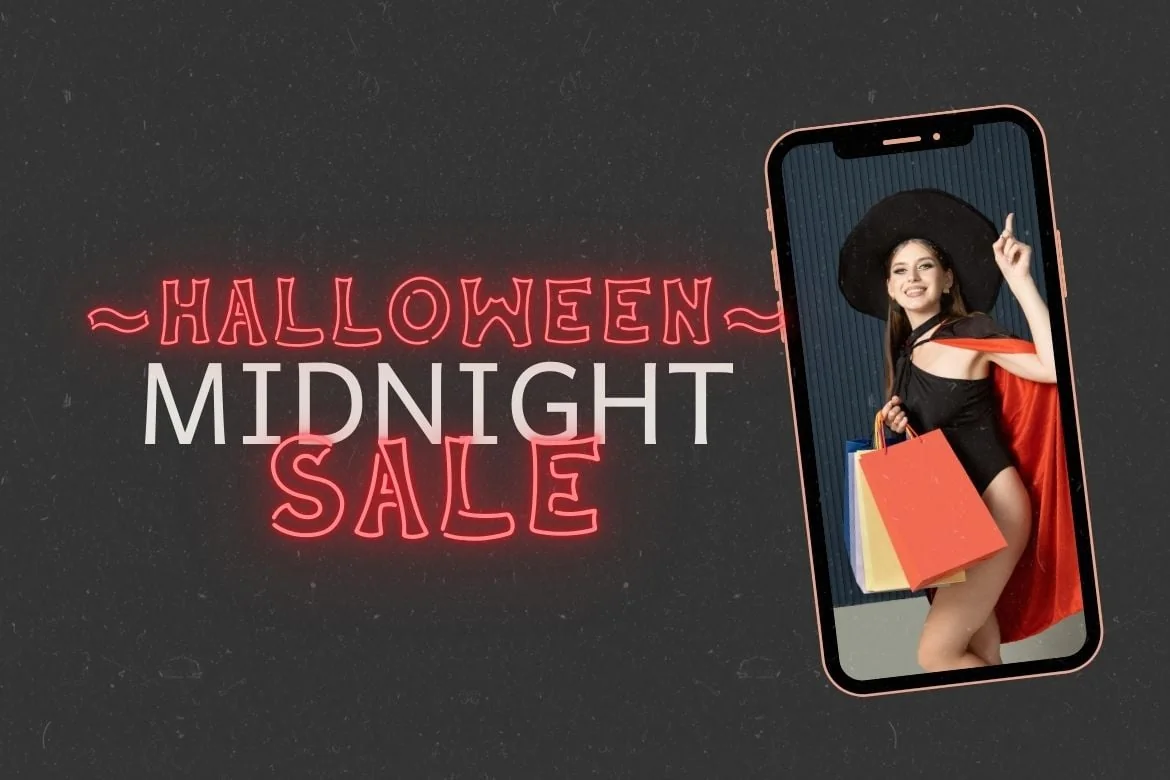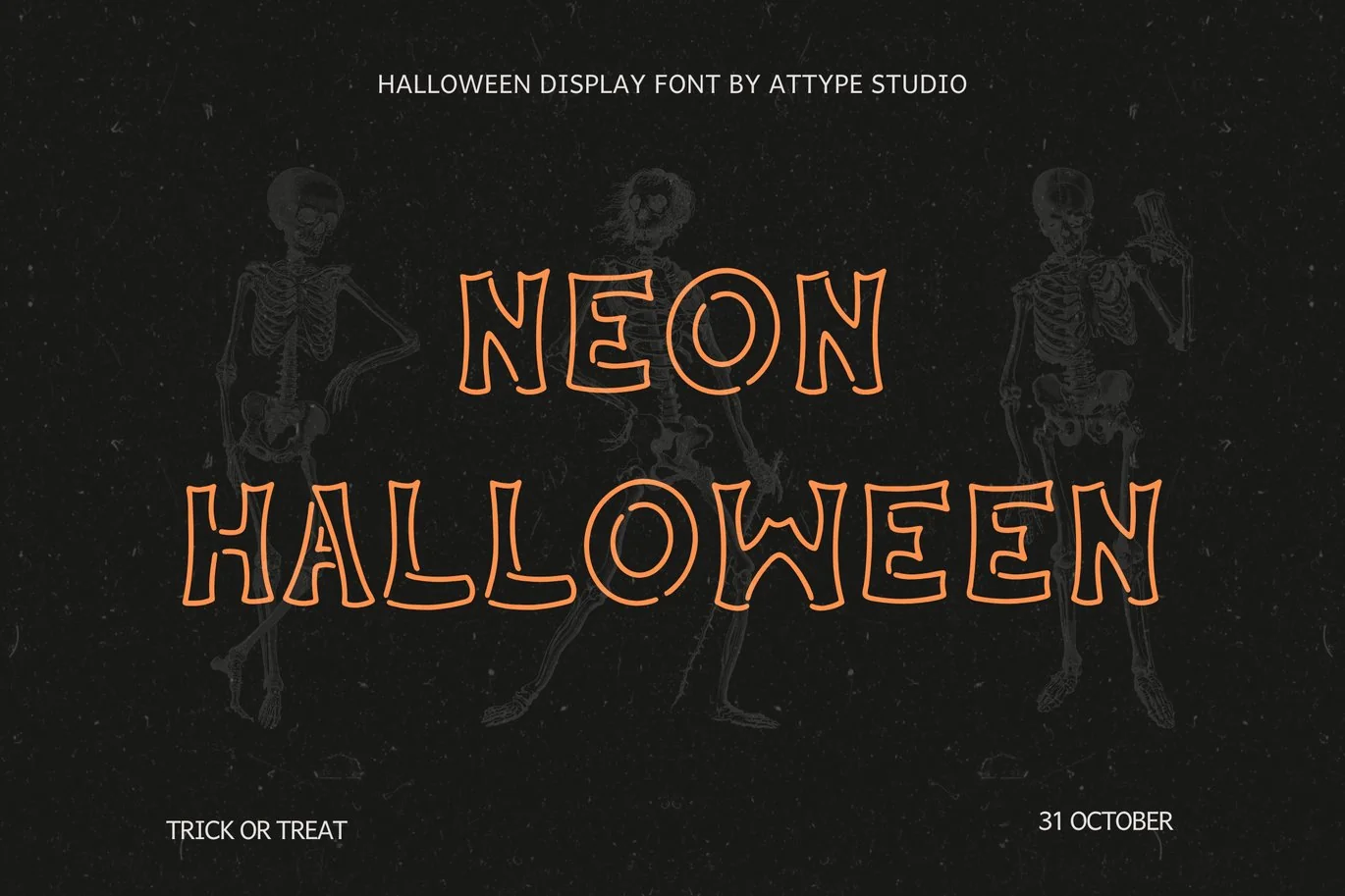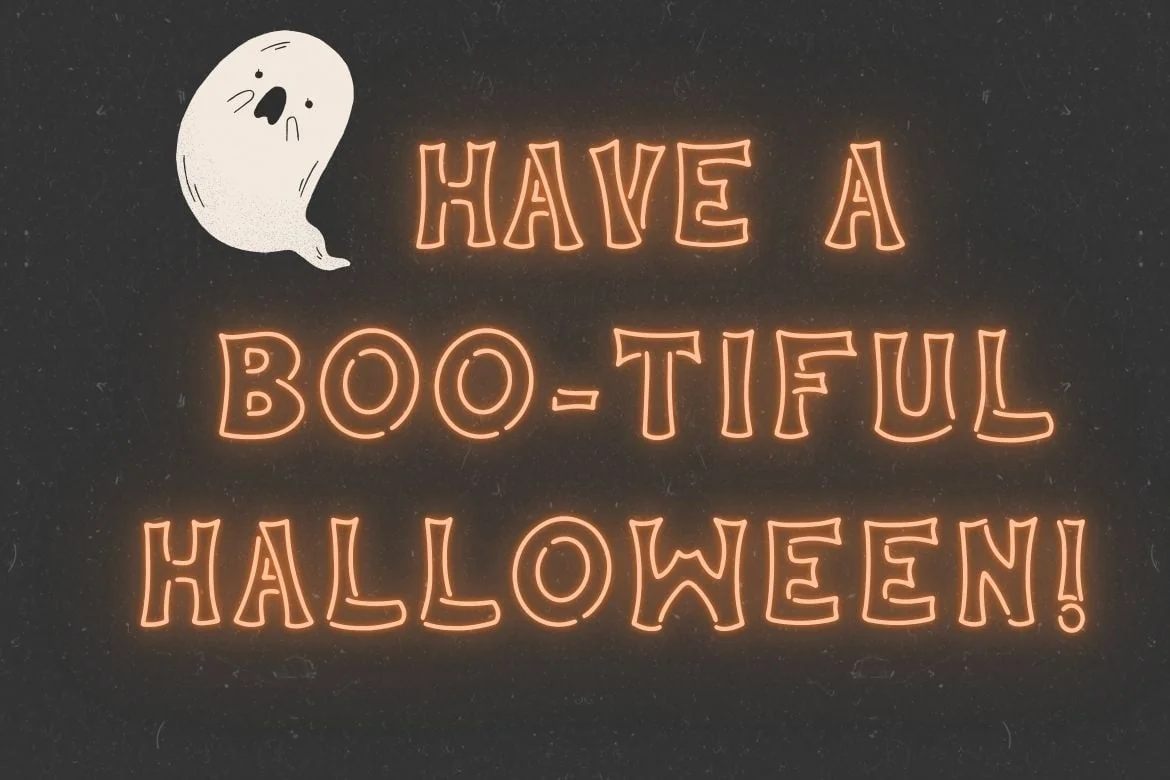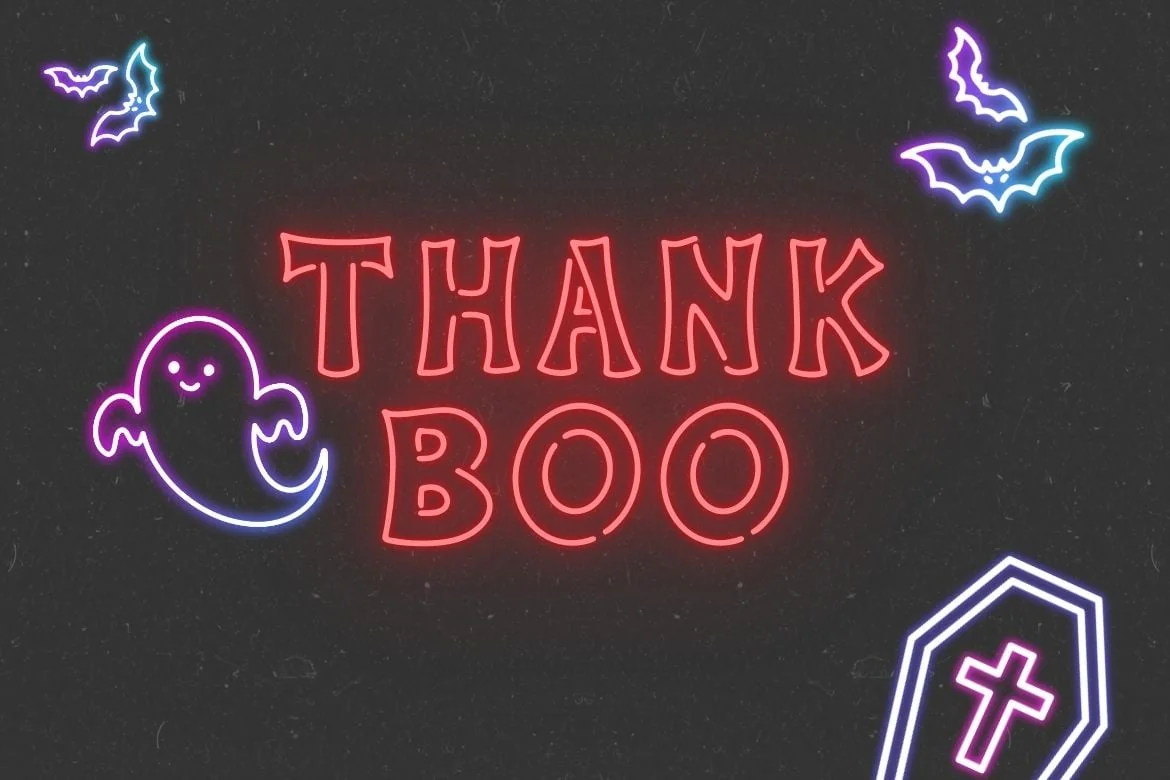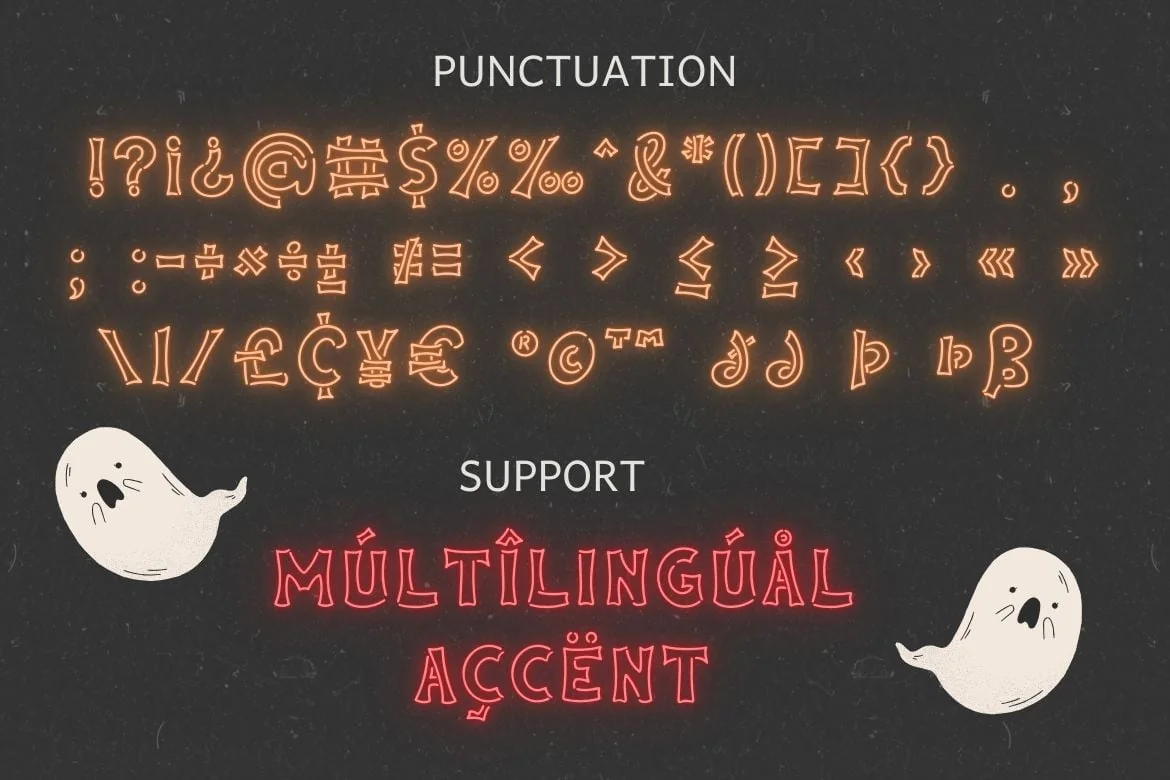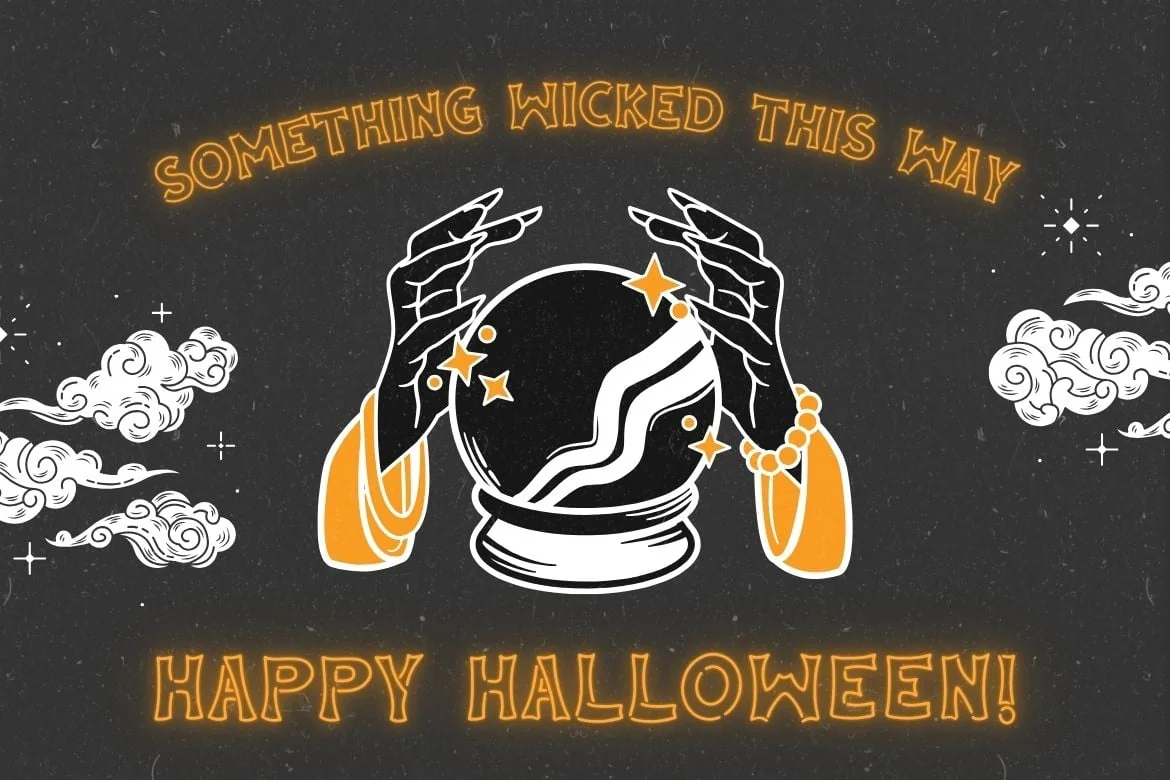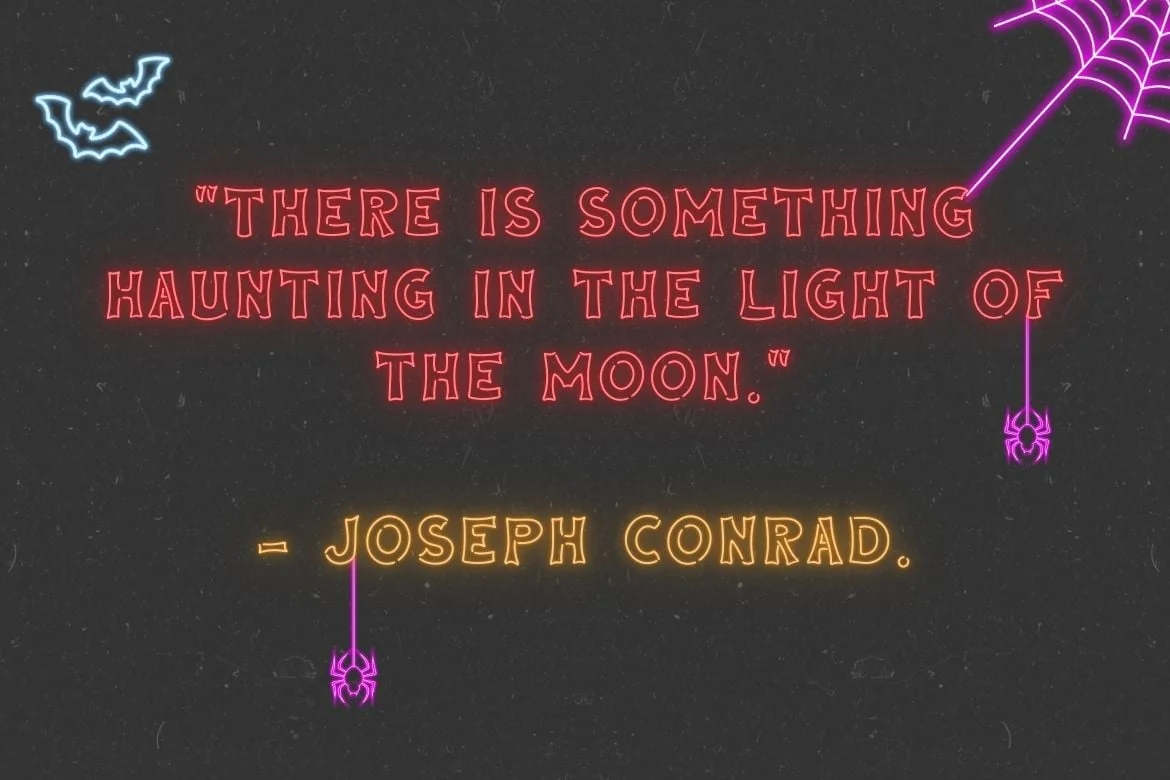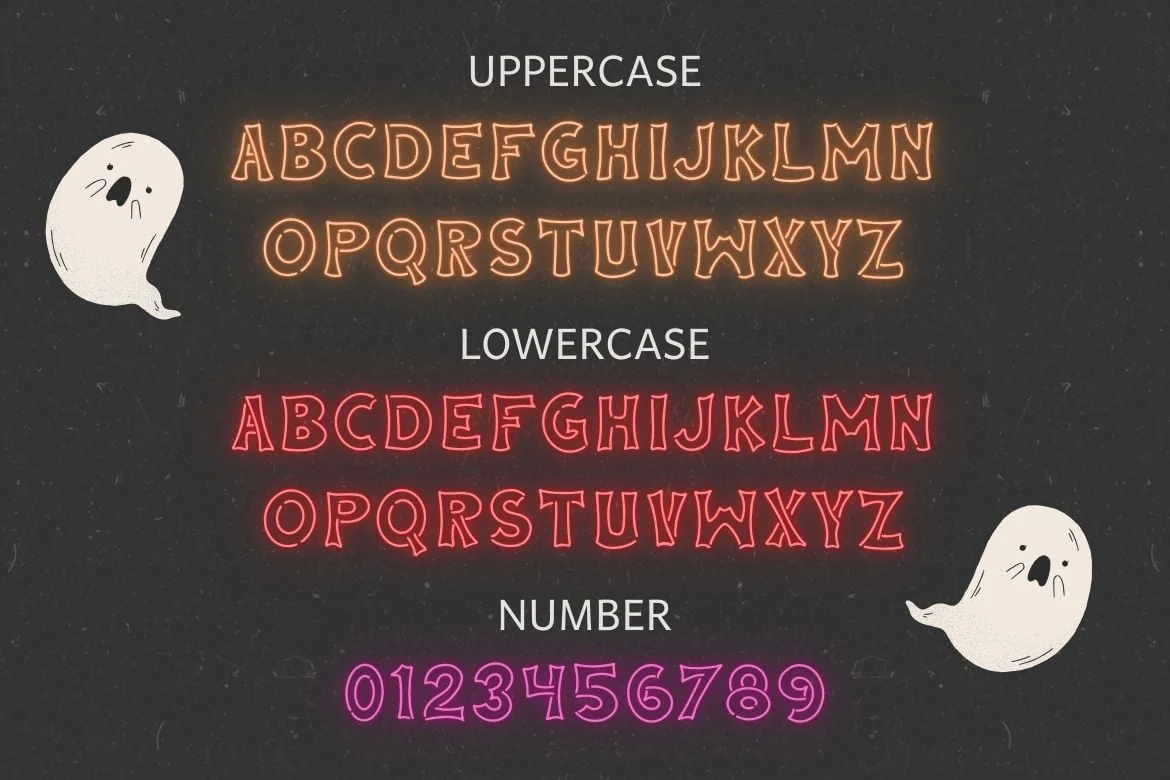
Neon Halloween – Display Font
Introducing Neon Halloween
Create unforgettable Halloween displays with Neon Halloween, a custom font designed to bring your spooky visions to life.
Its unique broken outline style is perfect for crafting eye-catching neon signs that are sure to make a lasting impression.
- Multilingual, US Roman, Latin 1 Support